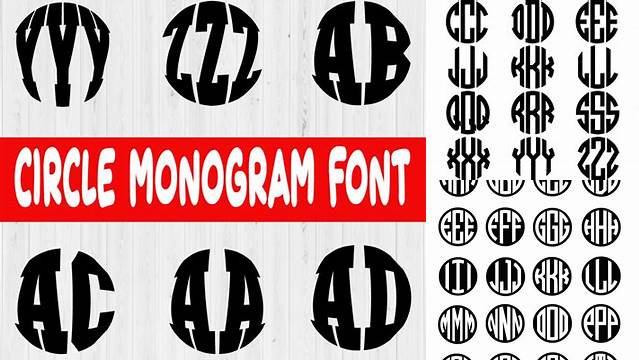
🖋️ Unveiling the Charm of Circle Monogram Fonts
Free circle monogram font downloads are more than just letters arranged in a circle; they're a statement of style, a symbol of sophistication, and a versatile design element that can elevate any project. These fonts elegantly intertwine initials, often featuring a central letter flanked by two others, all encased within a circular frame. The design creates a harmonious balance, making it instantly recognizable and visually appealing. Think of them as the little black dress of the font world – classic, timeless, and always in style. Whether you're crafting a custom logo for your small business, designing wedding invitations, or simply adding a personal touch to your stationery, circle monogram fonts are your go-to solution.
One of the most significant advantages of using a circle monogram font is its versatility. It's suitable for a wide range of applications, from branding to personal projects. The circular shape inherently creates a sense of unity and completeness, making it ideal for representing a whole. It is equally at home on a formal wedding invitation or a playful social media graphic. Furthermore, the circular frame provides a natural visual boundary, making the monogram stand out and easily recognizable. The fonts come in various styles. You can find classic serif fonts to more modern sans-serif versions, allowing you to pick the perfect font to match your aesthetic and brand. Using the right font can dramatically change the feel and the message of the design. It’s easy to customize the design to fit your needs, whether it's the color, size, or the overall design. They’re like a chameleon that can adapt to different situations.
Let's also talk about personalization, which is a key feature of circle monograms. They offer a unique opportunity to create something that's truly yours or represents the person you're designing for. Initials are inherently personal, and combining them in a monogram adds an extra layer of meaning. Whether it's your initials, a loved one's, or the initials of your business, a circle monogram transforms ordinary text into a personalized emblem. They're a great way to create brand recognition, build loyalty with your customers, or simply leave a lasting impression. In the world of design, details matter, and a well-chosen circle monogram can make all the difference. They can be elegant, cute, formal, or playful. The possibilities are endless. They're a quick and easy way to add a touch of class to any project. It is also a great way to showcase your creativity. You can play around with the size, shape, and color of the monogram to create something unique and eye-catching. In the end, they’re more than just fonts; they are a reflection of who you are.
📝 Step-by-Step Guide: Downloading and Installing Circle Monogram Fonts
So, you’ve found the perfect free circle monogram font downloads. Now what? Don't worry; installing fonts is a breeze, even if you’re not a tech whiz. Here’s a simple step-by-step guide to get you started, ensuring you can use your fonts on both Windows and macOS.